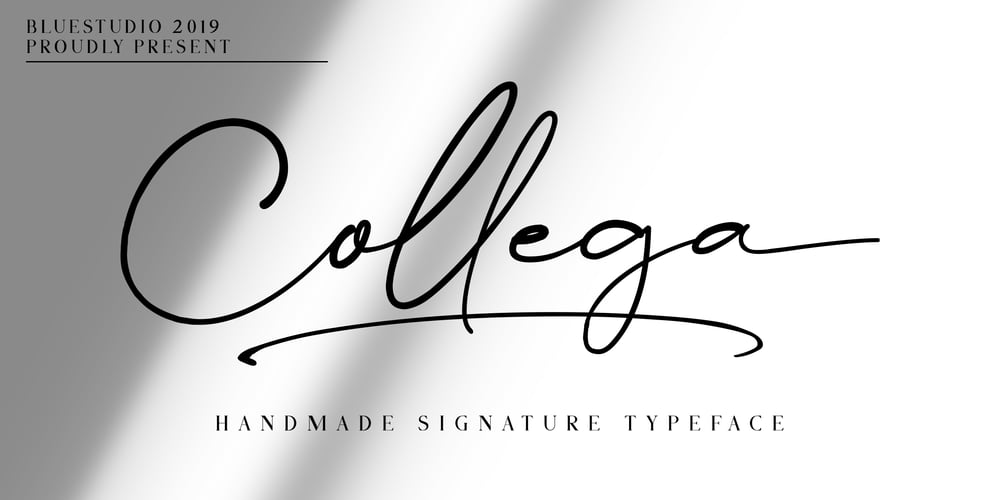
Collega
Collega font
Collega Font Family was designed by Winarno and published by Bluestudio. Collega contains 1 styles and family package options. Collega signature font is made to resemble hand scratches. Collega offers beautiful typographic harmony for a variety of design projects, including watermark, logos, branding, wedding designs, social media posts, advertisements, product designs, magazines and others. Collega contains Ligatures and Multi-lingual support. We can’t wait to hear your comments and we are very grateful for your visit to our store. Happy designing!